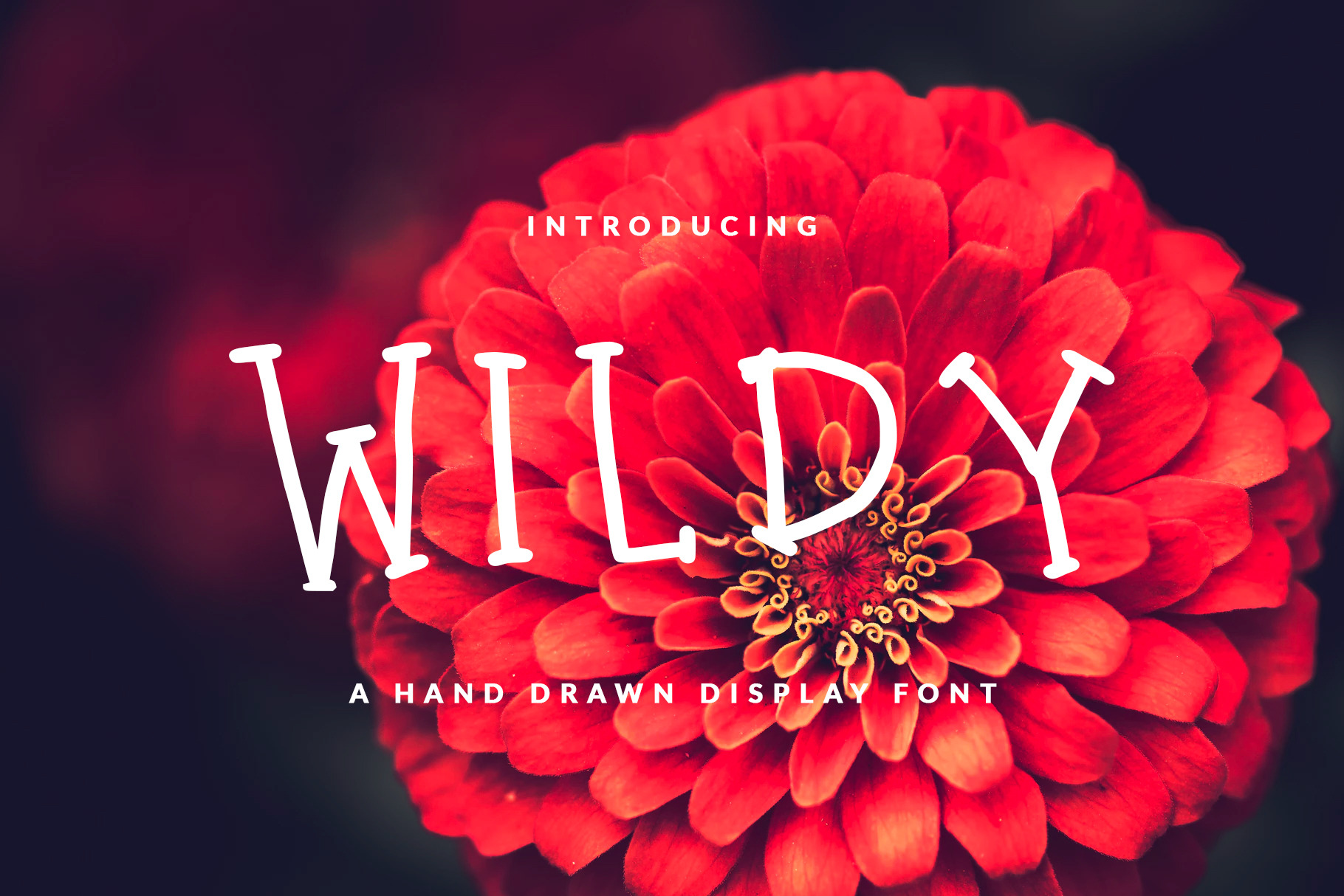
WILDY FONT FEMININE & FUN
Sans serif hand-drawn display font called WILDY was designed for modern, classic, feminine, unique and other style also fit for Header website, general use for header text, kids stories, books, poems and other long text